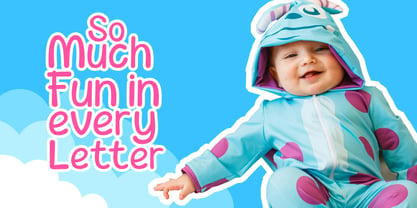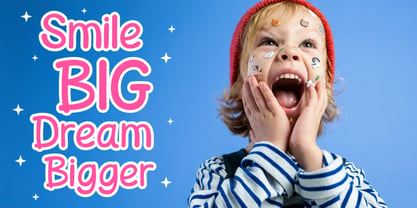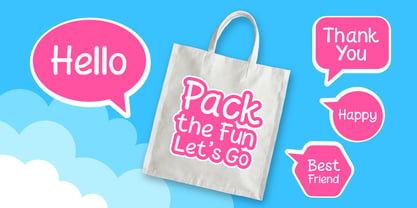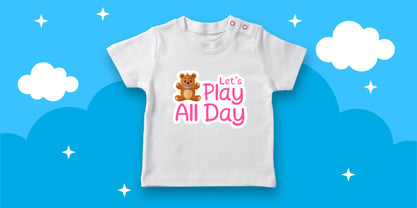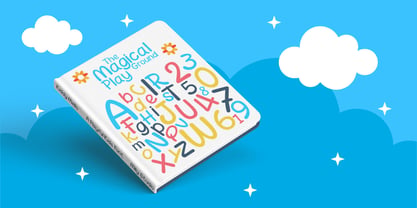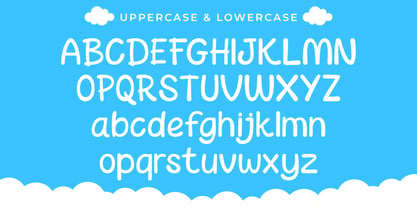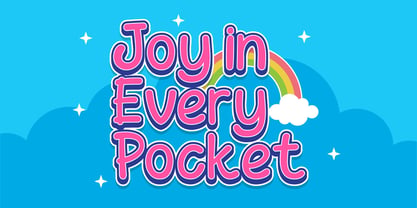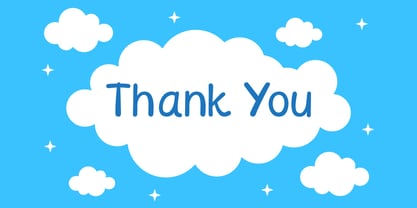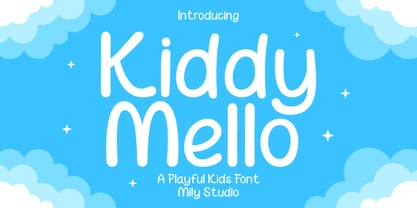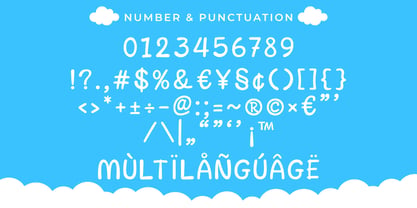
Kiddy Mello
by Mily Studio
Kiddy Mello is a playful and friendly font crafted especially for kids projects. With soft rounded edges and a joyful vibe, it's perfect for children's books, posters, toys, and school-themed designs. Let every word bounce with fun and charm.